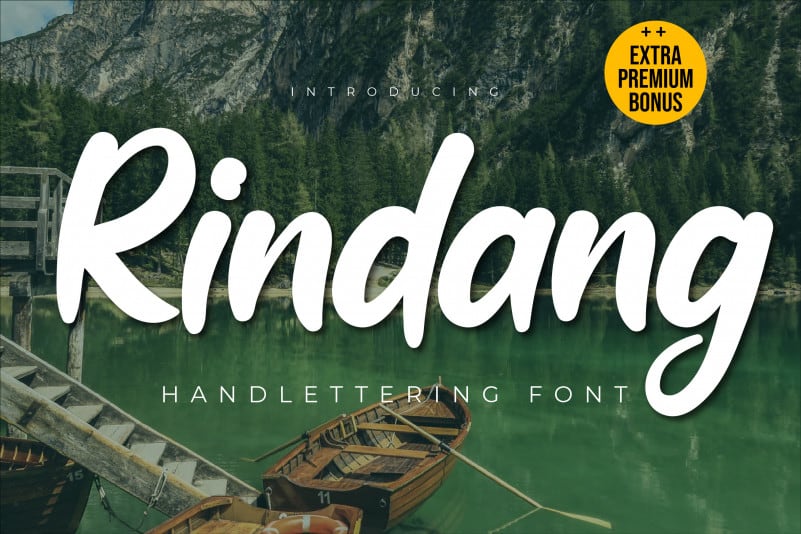
Rindang Script Font
Rindang Script Font is a flowing hand-drawn typeface, described by an elegant touch, perfect for your favorite projects. Fall in love with its incredibly distinct and timeless style and use it to create spectacular designs!